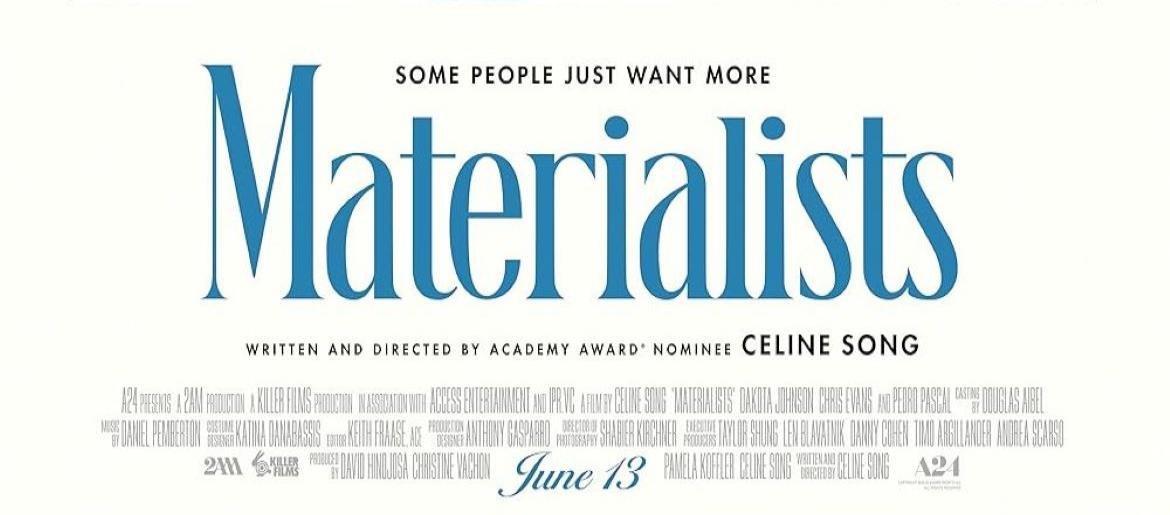
Materialists Font
The Materialists font is bold, modern, and designed to make a statement. With its clean sans-serif structure and strong geometric shapes, it carries a sense of confidence and clarity. The lettering is sharp yet minimal, giving it a sleek, contemporary edge that works perfectly for branding, posters, or digital projects that need to stand out.
Much like its name suggests, the Materialists font embodies modern aesthetics—it’s straightforward, impactful, and built to leave a lasting impression. You can also check our free fonts collection.